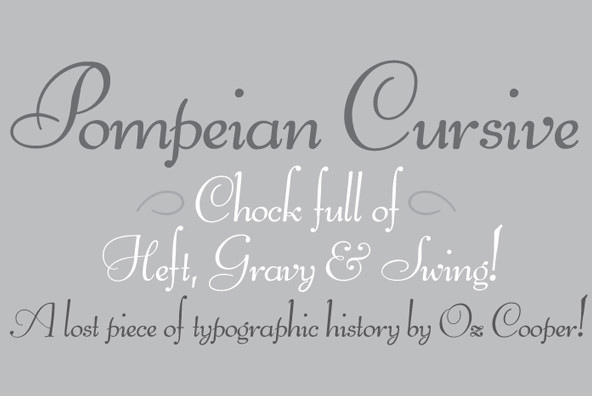
Pompeian Cursive Font is perfect for classical archaeology branding, ancient history museums, Roman cultural exhibitions, historical education materials, classical studies publications, ancient civilization documentaries, heritage tourism marketing, and scholarly advertising campaigns. This ancient typeface works magnificently in both digital applications and print media where Roman heritage and classical antiquity are fundamental design requirements.
What makes Pompeian Cursive Font so exciting is its authentic interpretation of ancient Roman handwriting through historically accurate letterforms that seem inscribed with the same casual elegance and daily functionality that defined personal correspondence and informal writing in the Roman Empire. The font features classical characters with ancient proportions, Roman curves, and historical details that evoke the intimate glimpse into daily life preserved in the volcanic ash of Pompeii and the authentic voice of Roman citizens across the empire. Its historical personality and archaeological heritage make it ideal for educational institutions seeking to bring ancient history to life while appealing to audiences fascinated by the human stories and cultural legacy of classical civilization.
The Pompeian Cursive Font family includes multiple weight variations with different historical authenticity levels, along with archaeological alternates and Roman ornamental elements. Each style maintains the typeface's ancient character while offering comprehensive character sets including Roman numerals, classical punctuation marks, and special symbols designed to enhance historical communications and archaeological branding efforts across various educational contexts.
This extraordinary typeface represents the perfect fusion of archaeological authenticity and contemporary educational functionality for museums and cultural institutions. Whether you're developing classical museum identities, creating ancient history educational materials, or designing Roman heritage tourism campaigns, Pompeian Cursive Font Free Download provides the historical authenticity and versatility needed to connect with history-loving audiences. The font's archaeological appeal makes it particularly effective for museums, educational institutions, historical sites, and organizations celebrating the enduring fascination with Roman civilization and classical antiquity.
The meticulously preserved ancient construction and optimized historical performance in Pompeian Cursive Font ensure both archaeological authenticity and clear communication across all classical applications. Its historical presence makes it perfect for educational branding, cultural marketing materials, and scholarly communications where its full Roman character can create lasting connections with audiences seeking to understand and appreciate the rich cultural heritage and human stories of ancient Roman civilization.